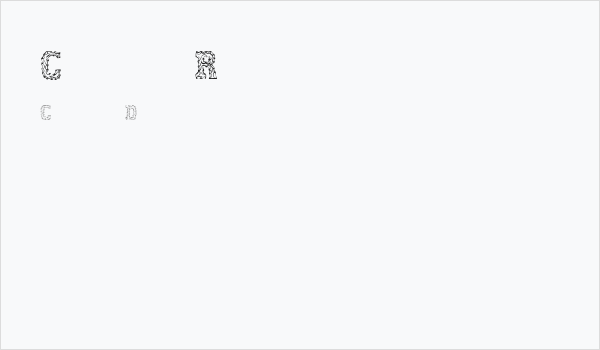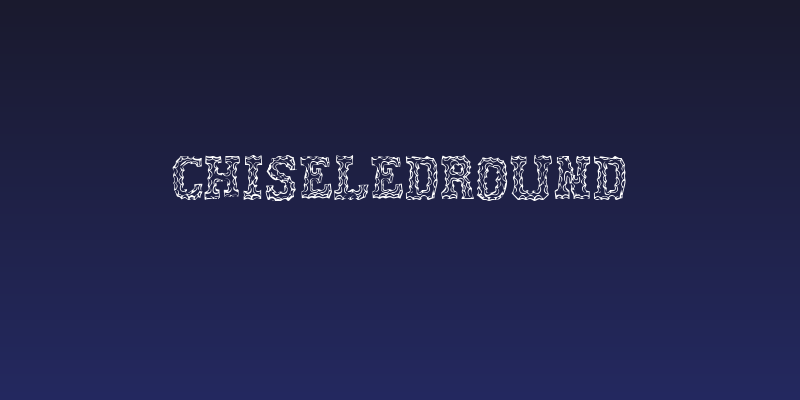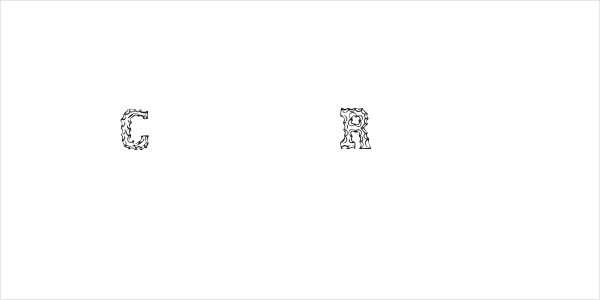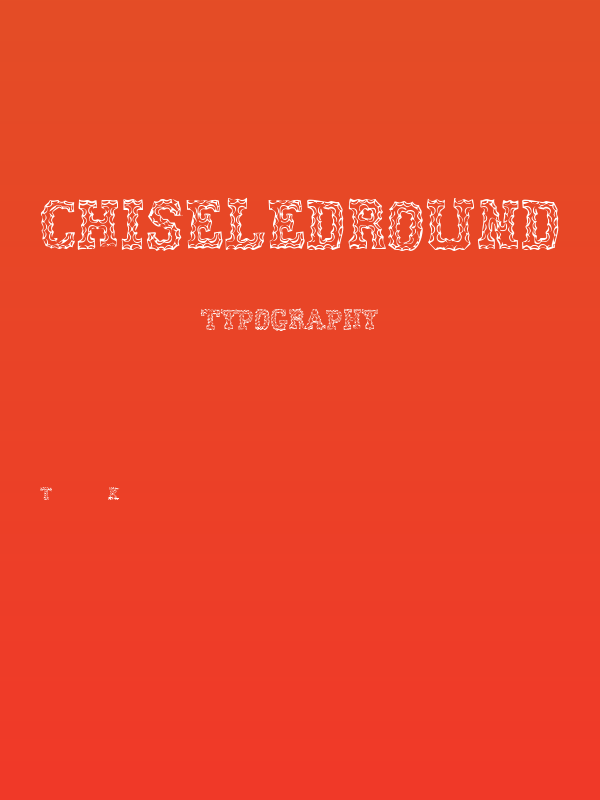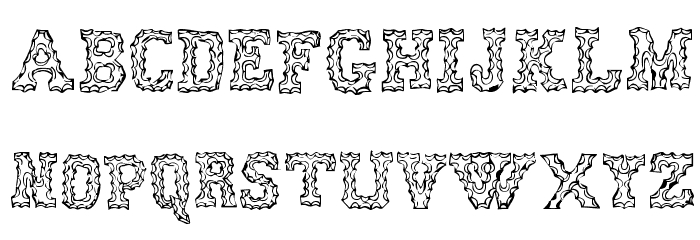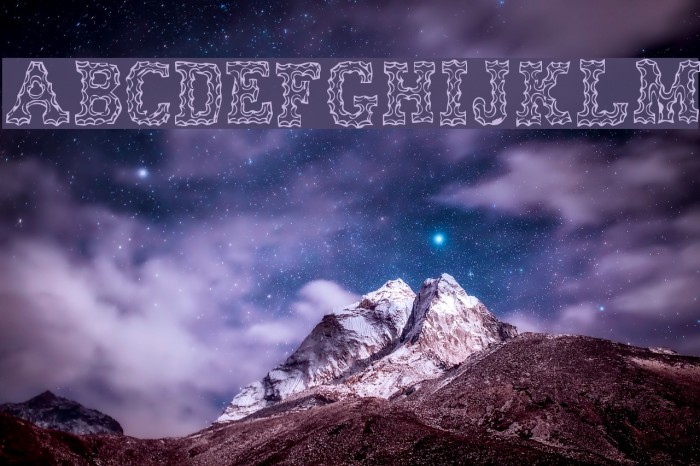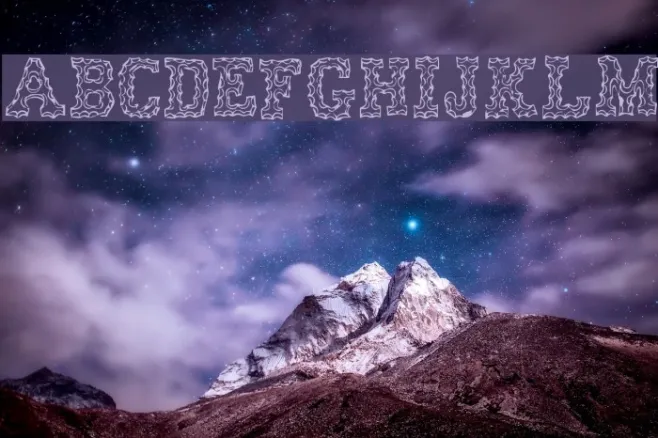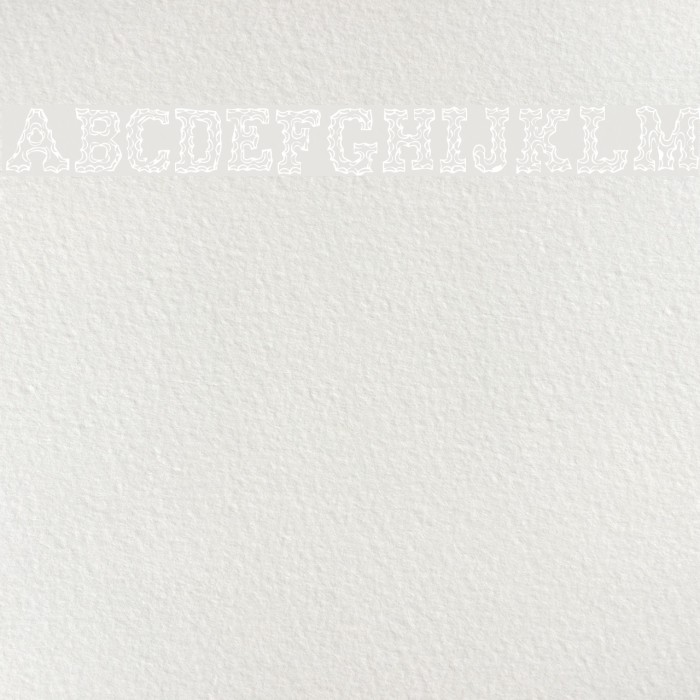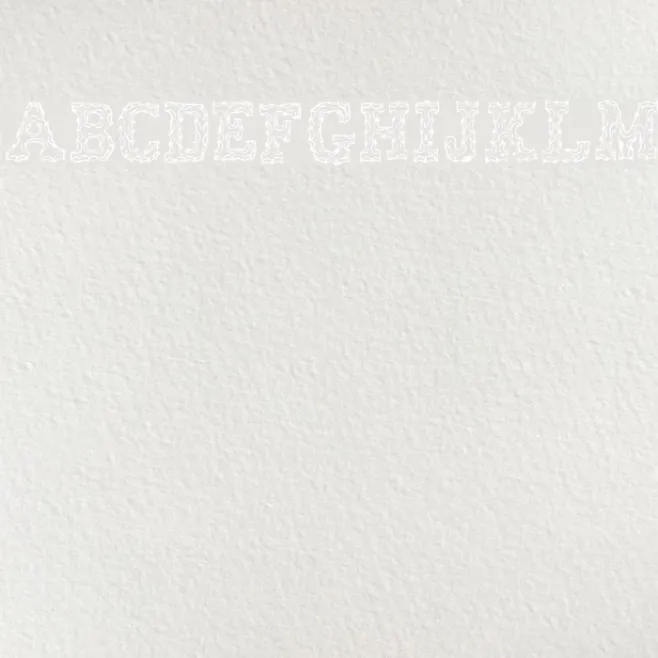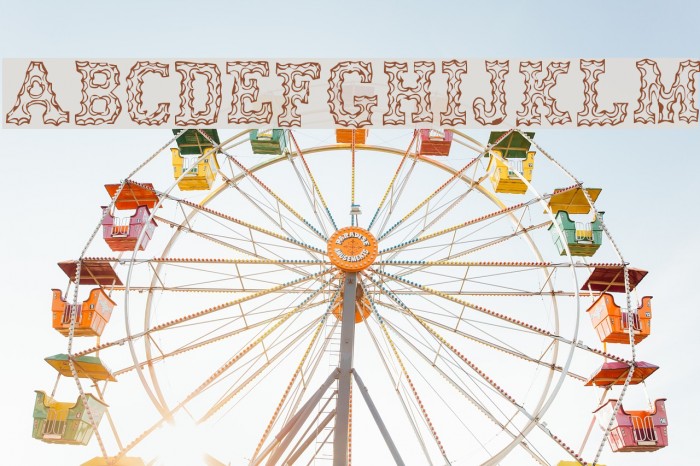
ChiseledRound Font
ChiseledRound Description
This font features a bold and decorative style with a chiseled, textured appearance. Each character is intricately designed with a rough, stone-like texture that gives it a unique, artistic flair. The uppercase letters are particularly striking, with their bold outlines and detailed inner patterns. The font maintains a consistent weight throughout, providing a cohesive look across all characters. Its distinct style makes it stand out, making it ideal for creative and eye-catching designs.
| Proposed Projects | Ideal for use in posters, logos, and artistic projects where a bold, unique statement is needed. |